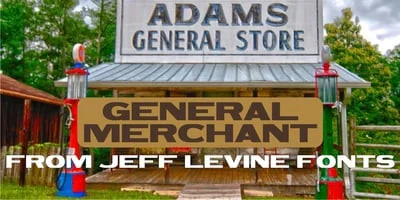
General Merchant JNL Font
General Merchant JNL Font is a robust and classic display typeface that effortlessly evokes the nostalgic charm of early 20th-century storefronts, vintage packaging, and traditional advertisements. Its sturdy, no-nonsense character and slightly weathered appearance make it an exceptional choice for projects aiming to convey authenticity, heritage, and a timeless, mercantile spirit. Imagine it gracing boutique shop signs, artisanal product labels, retro-inspired posters, classic deli menus, vintage apparel branding, or unique titles for historical documentaries. This font excels at conveying a sense of established quality, honest craftsmanship, and a warm, inviting presence. It’s particularly effective for brands and creatives who want their message to resonate with a feeling of tradition and genuine, down-to-earth appeal.
What makes General Merchant JNL Font truly exciting is its remarkable ability to blend historical reverence with contemporary usability. It captures the essence of hand-painted signage and traditional print, offering a unique visual texture that is both memorable and highly legible, especially in larger sizes. This font isn't just about displaying text; it tells a story of commerce, community, and enduring value, injecting your designs with a sense of robust artistry and timeless appeal. It has a powerful ability to feel both incredibly grounded and surprisingly versatile, making it an ideal tool for designers who want their work to convey a sense of craftsmanship, reliability, and strong visual impact. General Merchant JNL Font empowers brands and creatives to project an image of dependable heritage and authentic character.
The General Merchant JNL Font family often focuses on delivering its distinctive display style with optimal impact. You'll typically find it available in a strong, regular weight that best showcases its unique design elements and sturdy character. While it might not feature a wide range of weights or conventional italic styles, some versions could include stylistic alternatives for certain characters or ligatures that further enhance its vintage and handcrafted appearance, allowing for even more customized typographic compositions. The comprehensive character set generally covers standard Latin characters, numbers, and a selection of punctuation, ensuring that General Merchant JNL Font is suitable for a wide array of creative and commercial applications where a bold and distinctive statement is desired. Its memorable and forceful presence ensures that any project featuring General Merchant JNL Font will leave a strong, lasting impression.